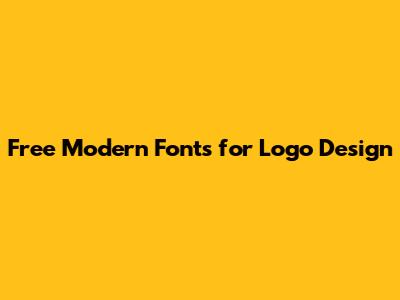
- Understand Your Brand: Before you start browsing fonts, take the time to define your brand's personality. Are you aiming for a modern, classic, playful, or sophisticated look? Knowing your brand's values and target audience will help you narrow down your options.
- Consider Legibility: A logo should be easily readable, even at small sizes. Choose fonts that are clear and legible, avoiding overly decorative or complex typefaces that can hinder readability.
- Think About Versatility: Your logo will be used across various platforms, from websites and social media to print materials. Select a font that works well in different sizes and formats.
- Pair Fonts Wisely: If your logo includes a tagline or additional text, consider pairing your primary font with a complementary typeface. A well-chosen font pairing can enhance the overall visual appeal of your logo.
- Test and Refine: Once you've chosen a font, test it out in different contexts and sizes. Get feedback from others and be prepared to make adjustments until you achieve the perfect look.
Choosing the right font is crucial for creating a memorable and effective logo. Modern fonts can give your brand a contemporary and stylish look, helping you stand out in today's competitive market. In this article, we'll explore a variety of free modern fonts that you can use to elevate your logo design. Whether you're a seasoned designer or just starting out, this guide will provide you with valuable resources to enhance your creative projects. Selecting the perfect font involves understanding your brand's identity and the message you want to convey. A well-chosen font not only complements your logo but also reinforces your brand's personality and values. Let's dive into the world of free modern fonts and discover the perfect typeface for your next logo design.
Why Modern Fonts Matter for Logo Design
Modern fonts play a pivotal role in shaping the overall perception of a brand. In today's visually-driven world, a logo is often the first point of contact between a business and its target audience. Therefore, the font used in a logo must be carefully selected to convey the right message and create a lasting impression. Modern fonts are characterized by their clean lines, geometric shapes, and minimalist designs, which evoke a sense of sophistication, innovation, and forward-thinking. These fonts are particularly effective for brands that want to project a contemporary image and appeal to a modern audience. The use of a modern font can instantly elevate a logo, making it appear more stylish and relevant. Moreover, modern fonts often offer excellent readability, ensuring that the logo remains legible across various media, from business cards to websites. By choosing a modern font that aligns with your brand's values and aesthetic, you can create a logo that not only looks visually appealing but also effectively communicates your brand's identity. A well-designed logo using a modern font can significantly enhance brand recognition and customer loyalty, ultimately contributing to the success of your business. So, when embarking on a logo design project, consider the power of modern fonts to transform your brand's image and make a lasting impact.
Top Free Modern Fonts for Logos
Finding the perfect modern font for your logo doesn't have to break the bank. Numerous free options are available that offer both style and functionality. Here are some top picks:
1. Montserrat
Montserrat is a widely popular geometric sans-serif font that exudes a clean and modern aesthetic. Designed by Julieta Ulanovsky, this font draws inspiration from the urban typography of the Montserrat neighborhood in Buenos Aires. Montserrat is highly versatile and works exceptionally well for logos, headlines, and body text. Its clean lines and balanced letterforms make it easy to read across various sizes and media. The font family includes a wide range of weights, from thin to black, providing ample flexibility for different design applications. Whether you're creating a minimalist logo or a bold brand identity, Montserrat offers the perfect blend of style and functionality. Its open-source license allows for free use in both personal and commercial projects, making it a go-to choice for designers seeking a reliable and modern typeface. In addition to its aesthetic appeal, Montserrat also boasts excellent legibility, ensuring that your logo remains clear and impactful, even at smaller sizes. By choosing Montserrat, you can create a logo that is both visually appealing and highly functional, effectively communicating your brand's message to your target audience. So, consider Montserrat as a top contender when selecting a modern font for your next logo design project. Its timeless design and versatility make it a valuable asset in any designer's toolkit.
2. Raleway
Raleway is an elegant sans-serif font that offers a perfect balance of sophistication and modernity. Originally designed as a single-weight display font by Matt McInerney, Raleway has since been expanded into a full family with multiple weights and styles. Its distinctive letterforms, characterized by a slightly elongated and refined appearance, make it an excellent choice for logos, headlines, and branding materials. Raleway's versatility allows it to be used in a wide range of design applications, from minimalist logos to more elaborate brand identities. The font's clean lines and subtle curves evoke a sense of sophistication, making it particularly well-suited for luxury brands and high-end products. In addition to its aesthetic appeal, Raleway also boasts excellent readability, ensuring that your logo remains legible across various media. Its open-source license allows for free use in both personal and commercial projects, making it a popular choice among designers. Whether you're creating a logo for a fashion brand, a tech startup, or a creative agency, Raleway offers a timeless and elegant solution. Its refined letterforms and balanced design make it a valuable asset in any designer's toolkit. So, consider Raleway as a top contender when selecting a modern font for your next logo design project. Its versatility and sophistication will undoubtedly elevate your brand's image and create a lasting impression.
3. Open Sans
Open Sans is a humanist sans-serif font designed by Steve Matteson, commissioned by Google. It is known for its neutral yet friendly appearance, making it highly versatile for a wide range of applications. Open Sans is characterized by its open forms and upright stress, which contribute to its excellent readability both on screen and in print. This font is particularly well-suited for logos, websites, and mobile applications. Its clean and simple design ensures that it remains legible across various sizes and resolutions. The Open Sans family includes a variety of weights and styles, providing ample flexibility for different design needs. Whether you're creating a minimalist logo or a comprehensive brand identity, Open Sans offers a reliable and versatile solution. Its open-source license allows for free use in both personal and commercial projects, making it a popular choice among designers and businesses alike. In addition to its aesthetic appeal, Open Sans also boasts excellent accessibility, ensuring that your logo is readable for users with visual impairments. Its neutral design allows it to seamlessly integrate with various design styles and color palettes. So, consider Open Sans as a top contender when selecting a modern font for your next logo design project. Its versatility, readability, and accessibility make it a valuable asset in any designer's toolkit.
4. Lato
Lato is a sans-serif typeface designed by Łukasz Dziedzic. In Polish, "Lato" means "Summer". Lato was designed to be transparent in body text but display some original traits when used in larger sizes. It exudes warmth and friendliness while maintaining a professional appearance. This font is a great option for logos, websites, and print materials. Its semi-rounded details of the letters convey warmth, while the strong structure provides stability and seriousness. The Lato family offers a variety of weights and styles, giving you flexibility in your design choices. It's open-source, meaning it’s free for both personal and commercial use. Lato’s balanced form makes it highly legible, ensuring your logo looks great in various sizes and contexts. If you are looking for a font that combines approachability with a touch of elegance, Lato is an excellent choice. Consider using Lato when you need a modern font that is both inviting and professional for your brand.
5. Bebas Neue
Bebas Neue is a sans-serif font family based on the original Bebas font by Ryoichi Tsunekawa. It is a popular choice for logos, headlines, and posters. Bebas Neue is known for its clean lines, tall and narrow proportions, and modern aesthetic. This font is highly versatile and can be used in a variety of design applications. The Bebas Neue family includes several weights, allowing you to create different visual effects. Its clean and simple design makes it easy to read and highly impactful. Bebas Neue is available for free for both personal and commercial use, making it a great option for designers on a budget. Its modern and minimalist design makes it a perfect choice for logos that need to convey a sense of innovation and sophistication. When choosing a font for your logo, consider Bebas Neue if you are looking for a tall, narrow, and modern typeface. This font can add a touch of elegance and professionalism to your brand identity. So, if you’re aiming for a sleek and contemporary look, Bebas Neue might just be the font you need.
Tips for Choosing the Right Font
Selecting the right font for your logo is a critical step in establishing your brand identity. Here are some tips to guide you through the process: